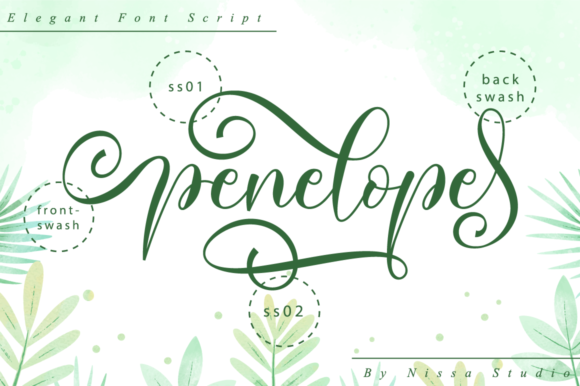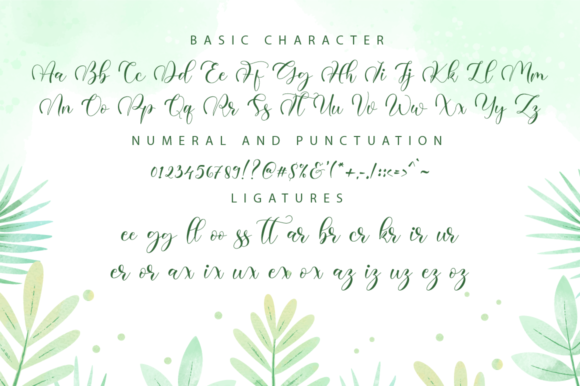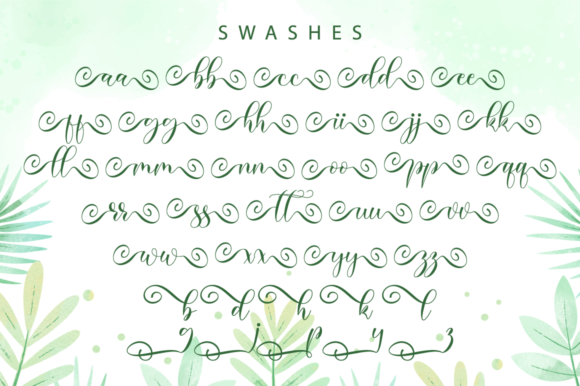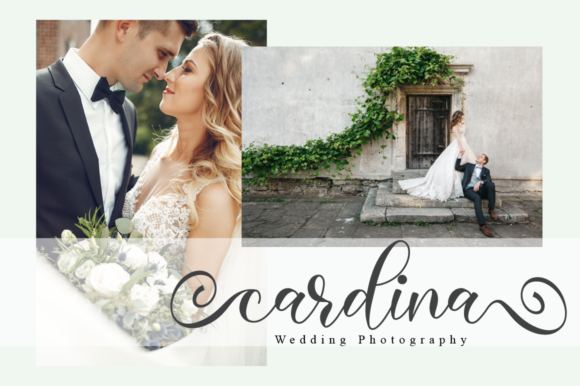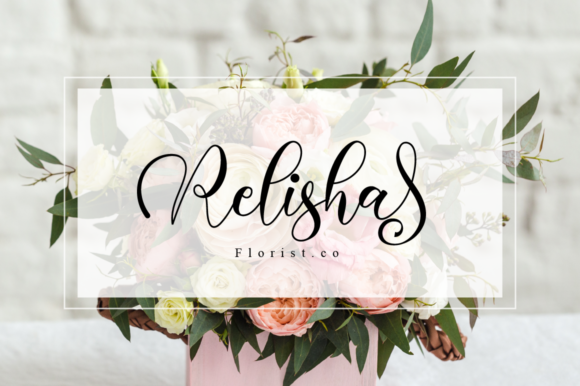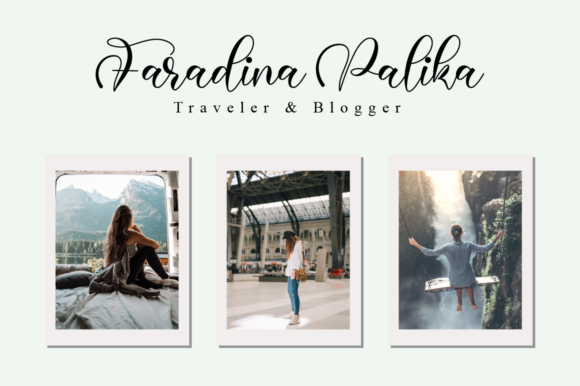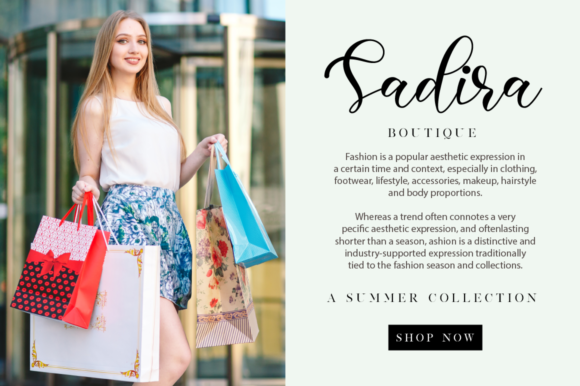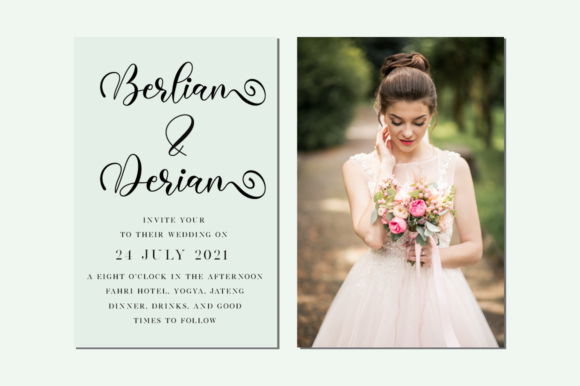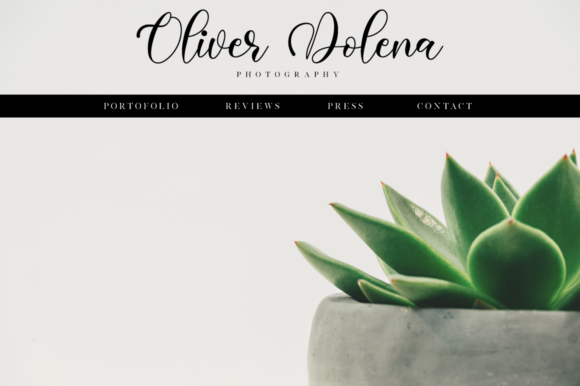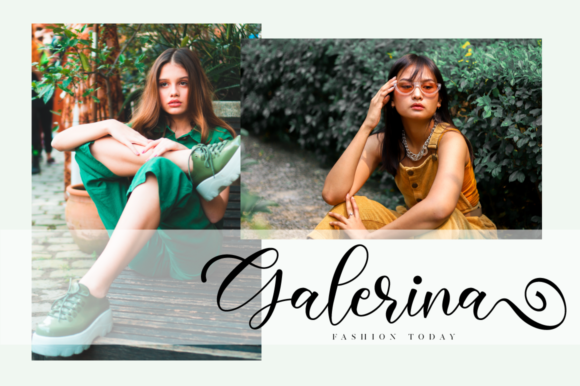
Penelope Font
About Penelope Font
Penelope is an elegant and flowing handwritten font. It is PUA encoded which means you can access all of the glyphs and swashes with ease! It features a varying baseline, smooth lines, gorgeous glyphs and stunning alternates. It maintains its classy calligraphic influences while feeling contemporary and fresh. Fall in love with this font and bring your projects to the highest levels!